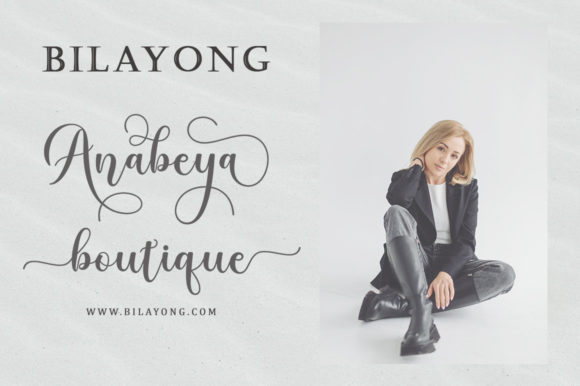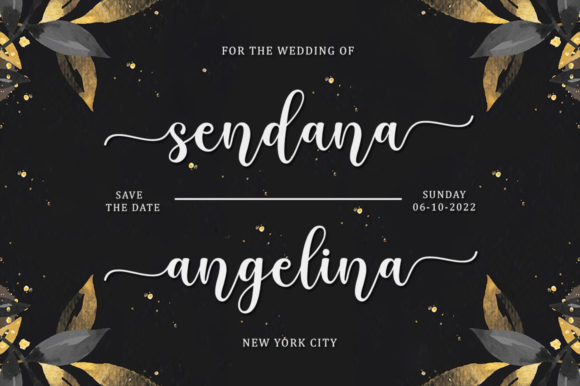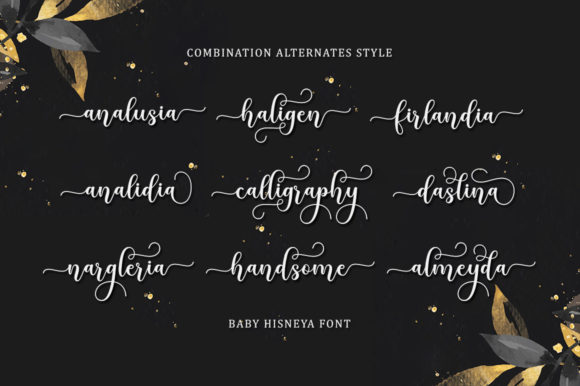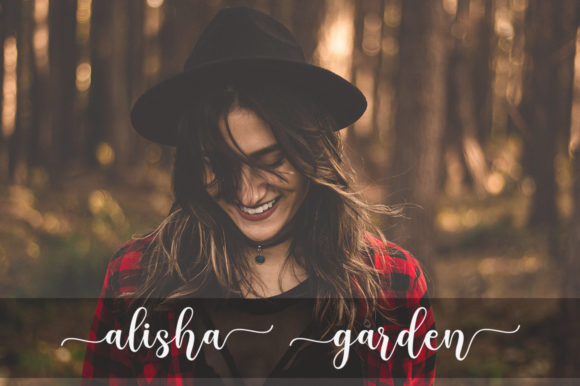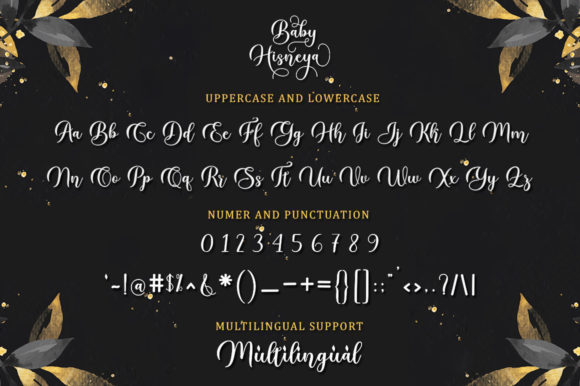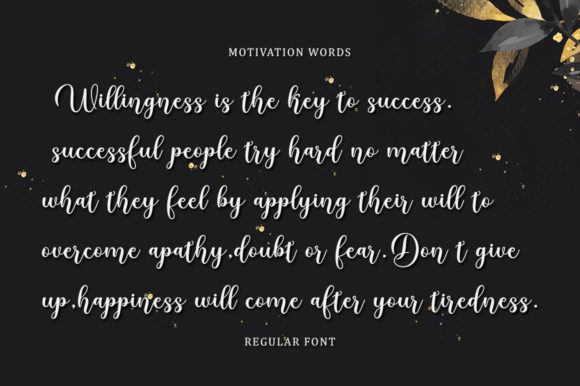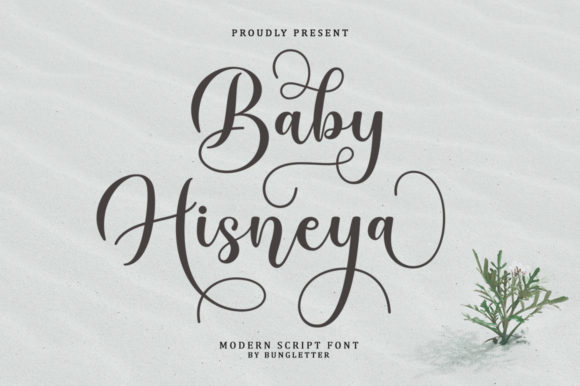
Baby Hisneya Font: The Ultimate Guide to this Stunning Modern Calligraphy Font
Are you a designer or crafter looking for a font that exudes elegance, femininity, and glamour? Look no further than the Baby Hisneya Font. This modern calligraphy font has taken the design world by storm with its beautiful and elegant touch, fine lines, and basic variations. In this comprehensive guide, we’ll dive into the world of Baby Hisneya Font, exploring its features, benefits, and uses.
What is Baby Hisneya Font?
Baby Hisneya Script is a modern calligraphy font that boasts a range of attractive features. Its clean and elegant design makes it perfect for a variety of design projects, from wedding invitations and branding materials to digital products and craft projects. The font’s fine lines and beautiful letter joints give it a sensual and glamorous feel, making it a popular choice among designers and crafters.
Key Features of Baby Hisneya Font
So, what makes Baby Hisneya Font so special? Here are some of its key features:
• Clean and Elegant Design: Baby Hisneya Font features a clean and elegant design that makes it perfect for a range of design projects.
• Fine Lines: The font’s fine lines give it a beautiful and delicate touch.
• Basic Variations: Baby Hisneya Font features basic variations, making it easy to use and versatile.
• Fancy Letter Joints: The font’s fancy letter joints add a touch of glamour and sophistication.
• Easy to Read: Despite its elegant design, Baby Hisneya Font is very easy to read, making it perfect for body text and headings.
Benefits of Using Baby Hisneya Font
So, why should you choose Baby Hisneya Font for your design projects? Here are some of the benefits of using this stunning font:
• Feminine and Glamorous Touch: Baby Hisneya Font adds a touch of femininity and glamour to any design project.
• Versatile: The font’s clean and elegant design makes it perfect for a range of design projects, from wedding invitations to digital products.
• Easy to Use: Baby Hisneya Font is easy to use and works seamlessly with a range of design software.
• High-Quality: The font is high-quality and comes with a range of features, including fine lines and fancy letter joints.
Uses of Baby Hisneya Font
Baby Hisneya Font is a versatile font that can be used for a range of design projects, including:
• Wedding Invitations: The font’s elegant design makes it perfect for wedding invitations and other wedding-related design projects.
• Branding Materials: Baby Hisneya Font is a great choice for branding materials, such as logos, business cards, and letterheads.
• Digital Products: The font’s clean and elegant design makes it perfect for digital products, such as ebooks, courses, and software.
• Craft Projects: Baby Hisneya Font is also a great choice for craft projects, such as scrapbooking, card making, and DIY projects.
Tips for Using Baby Hisneya Font
Here are some tips for using Baby Hisneya Font in your design projects:
• Use it for Headings and Titles: Baby Hisneya Font is perfect for headings and titles, where its elegant design can really shine.
• Pair it with Other Fonts: The font pairs well with other fonts, such as sans-serif fonts and script fonts.
• Experiment with Different Sizes: Baby Hisneya Font looks great in a range of sizes, from small to large.
• Use it for Body Text: Despite its elegant design, Baby Hisneya Font is easy to read and can be used for body text.
Font Name Baby Hisneya Font
Author bungreja123
In conclusion, Baby Hisneya Font is a stunning modern calligraphy font that is perfect for designers and crafters looking for a elegant and feminine touch. With its fine lines, basic variations, and fancy letter joints, this font is sure to impress. Whether you’re working on a wedding invitation, branding materials, digital products, or craft projects, Baby Hisneya Font is a great choice. So why not give it a try and see the difference it can make in your design projects?